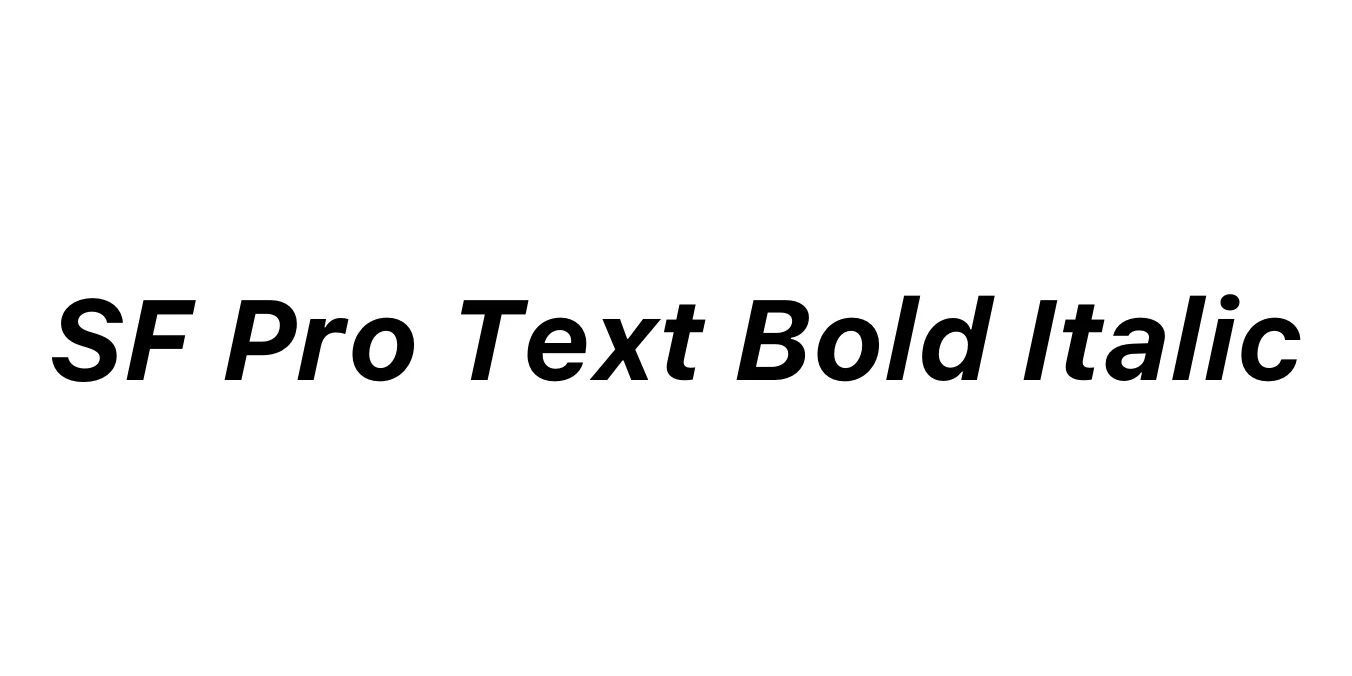
SF Pro Text Bold Italic
Designed by Apple Inc.
| Category | Neo-Grotesque Sans-Serif |
SF Pro Text Bold Italic is an integral part of the San Francisco typeface family, the primary system font designed by Apple Inc. for its various software platforms including iOS, macOS, and tvOS. The 'Text' variant is specifically optimized for legibility at smaller point sizes, featuring slightly wider apertures and generous tracking to ensure that text remains clear and readable even on high-resolution Retina displays.
The Bold Italic weight adds a layer of emphasis and dynamic energy to digital interfaces, making it perfect for call-to-actions, headers, and UI elements that require distinction. As a modern Neo-Grotesque sans-serif, SF Pro has replaced older system fonts like Helvetica Neue and Lucida Grande, setting a new standard for functional, neutral, and highly adaptable digital typography.
SF Pro Text Bold Italic Best Uses
Optimized for system menus, buttons, and navigation labels in software applications.
The gold standard for iOS application design to ensure a native look and feel.
Ideal for body text and emphasized segments in clean, professional website layouts.
Essential for designers creating high-fidelity mockups of Apple ecosystem products.